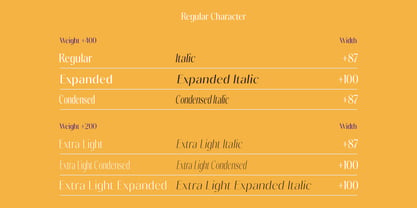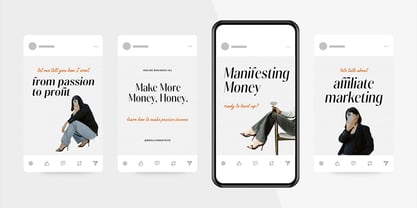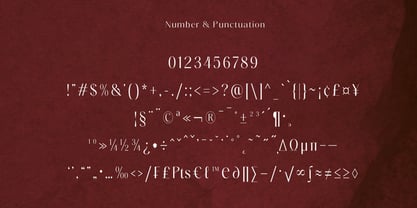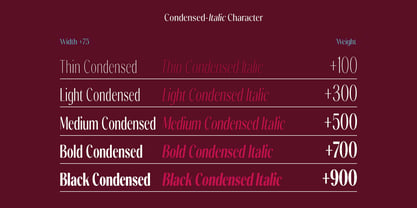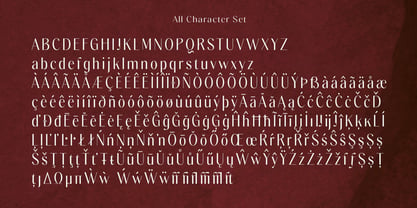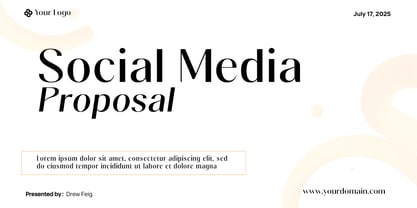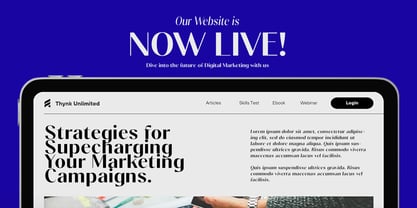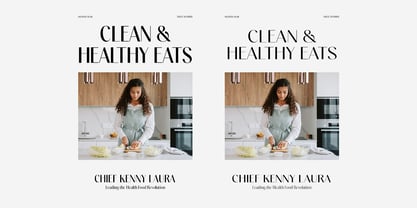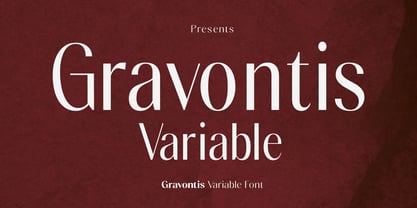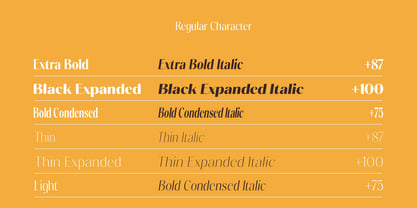
Gravontis
by Propertype
The Gravontis Font Family was designed by Nadia Auliana and published by Propertype. Gravontis contains 177 styles and family package options. More about this family
Gravontis is a modern variable sans typeface that blends luxury, clarity, and contemporary elegance into one highly versatile font family. Gravontis features a confident yet graceful character, making it ideal for premium and modern design applications. Gravontis offers up to 180 styles, including both upright and italic forms. This extensive flexibility allows designers to refine typography with precision—from clean, minimalist layouts to bold, expressive statements. Its balanced proportions, high legibility, and consistent rhythm work beautifully across a wide range of large display sizes and smaller text settings. Key features: Fully variable font for maximum flexibility Luxurious modern sans characters Balanced sharp and soft shapes for a premium feel A comprehensive family suitable for both display and text use. Gravontis empowers designers with creative freedom and typographic consistency—one sophisticated font family for modern visual communication. If you have any questions, feel free to message me Thank You
Designers: Nadia Auliana
Current Foundry: Propertype